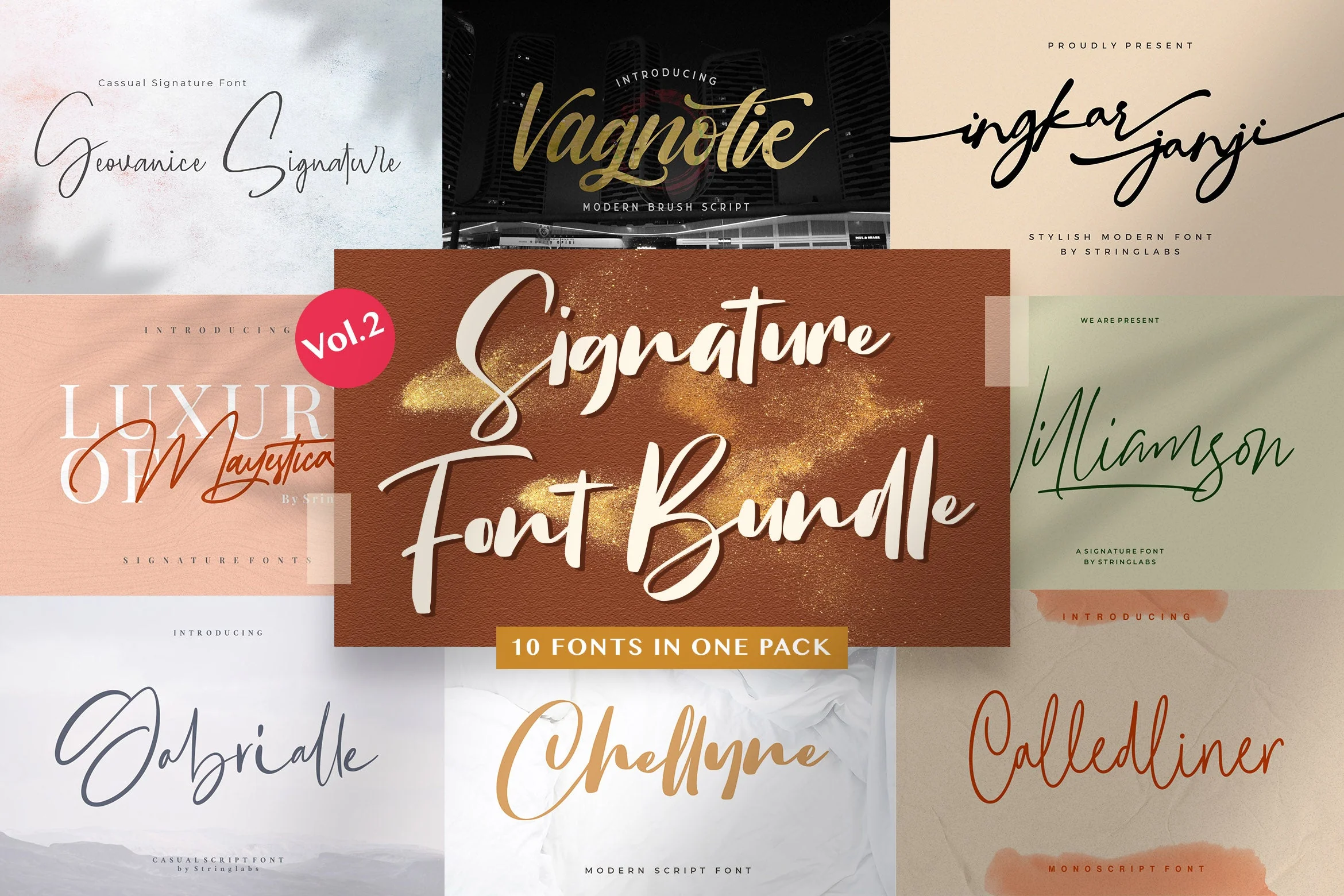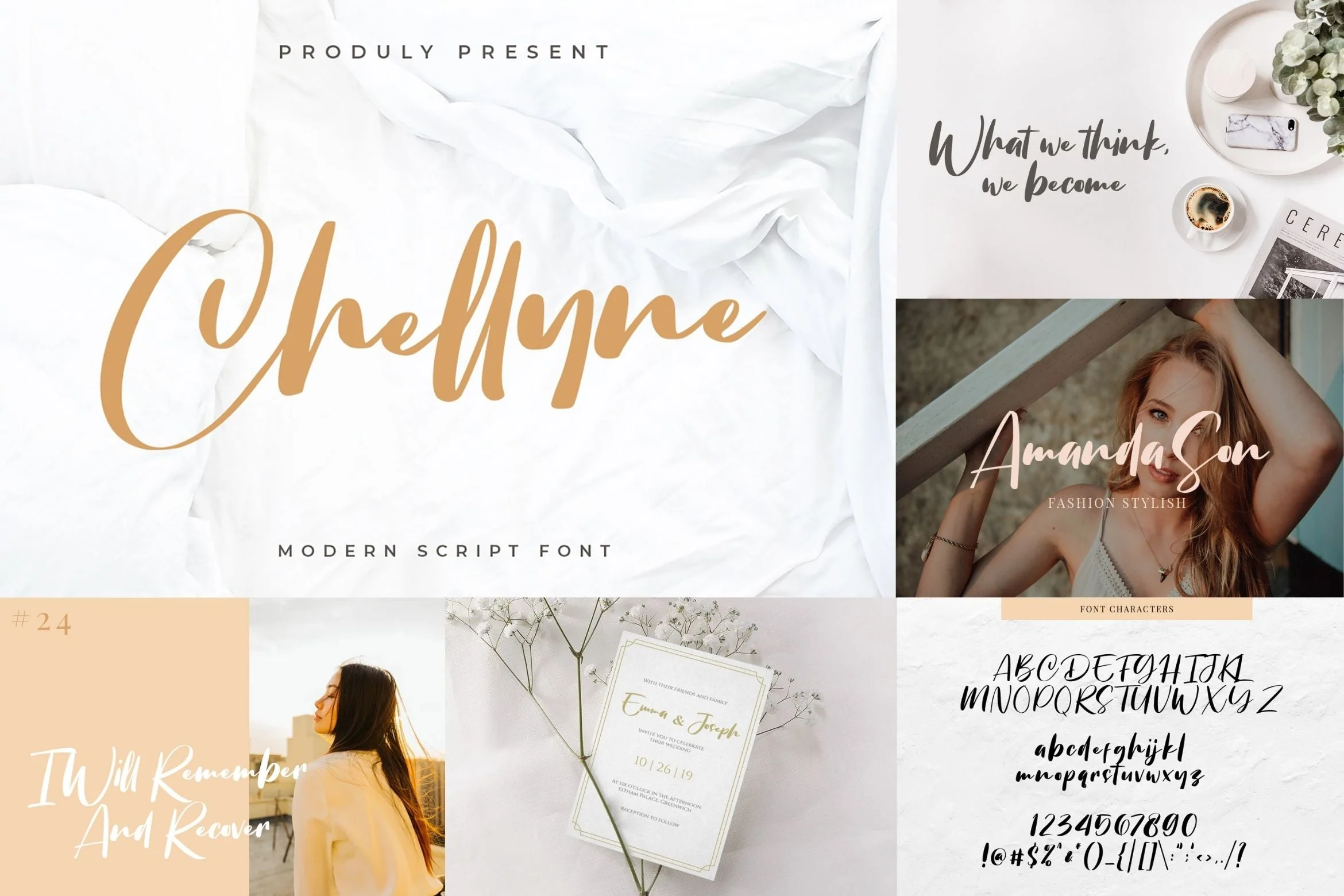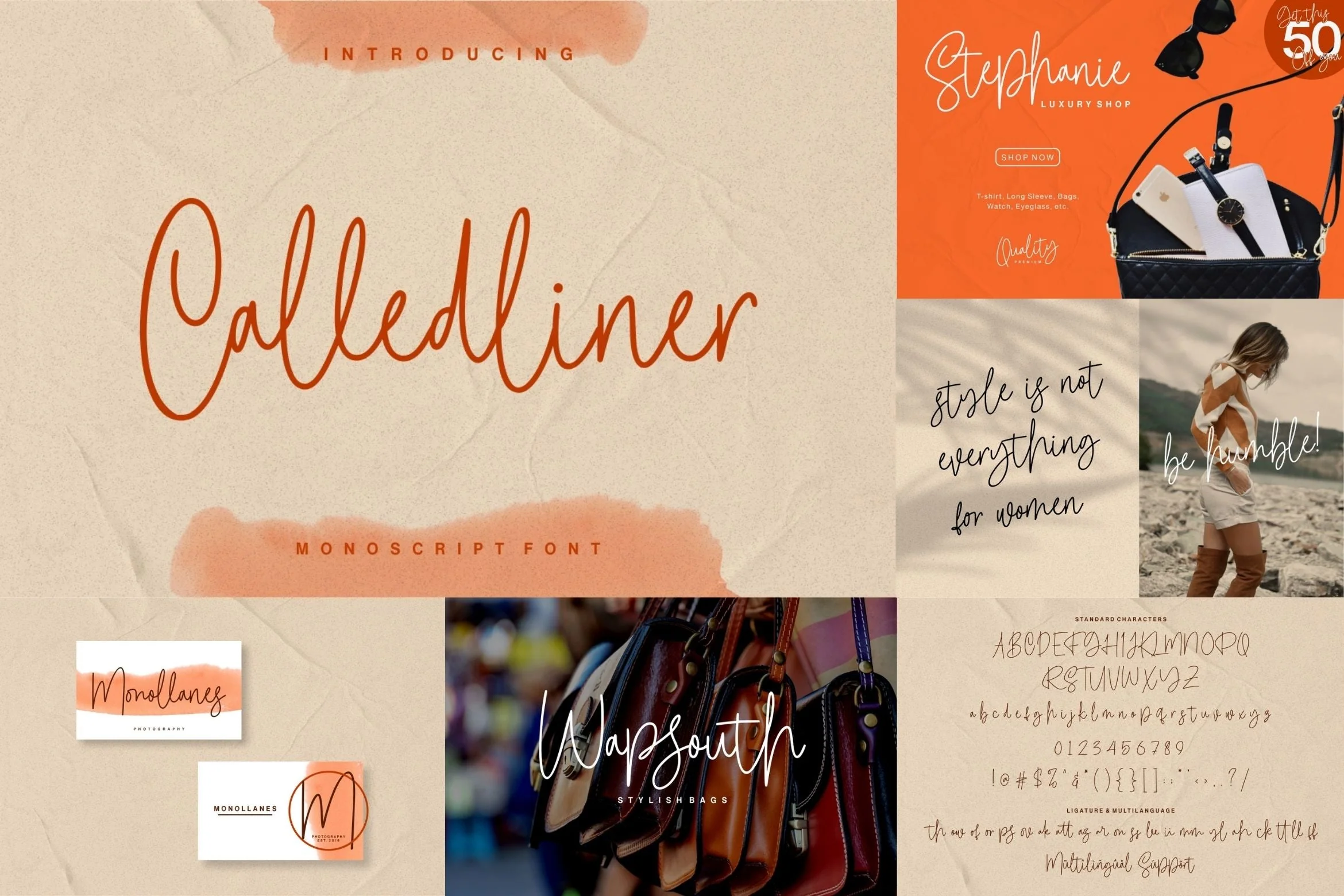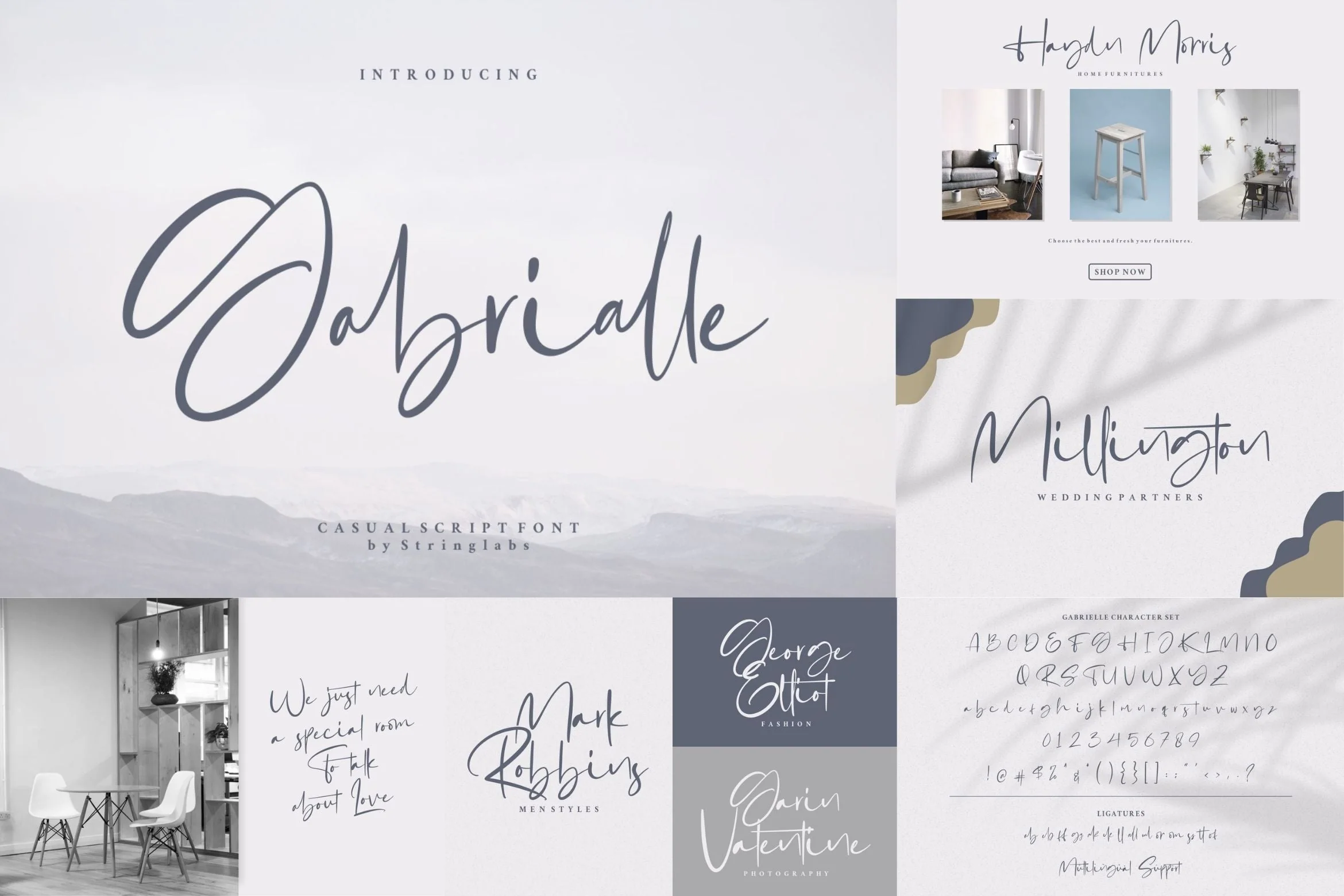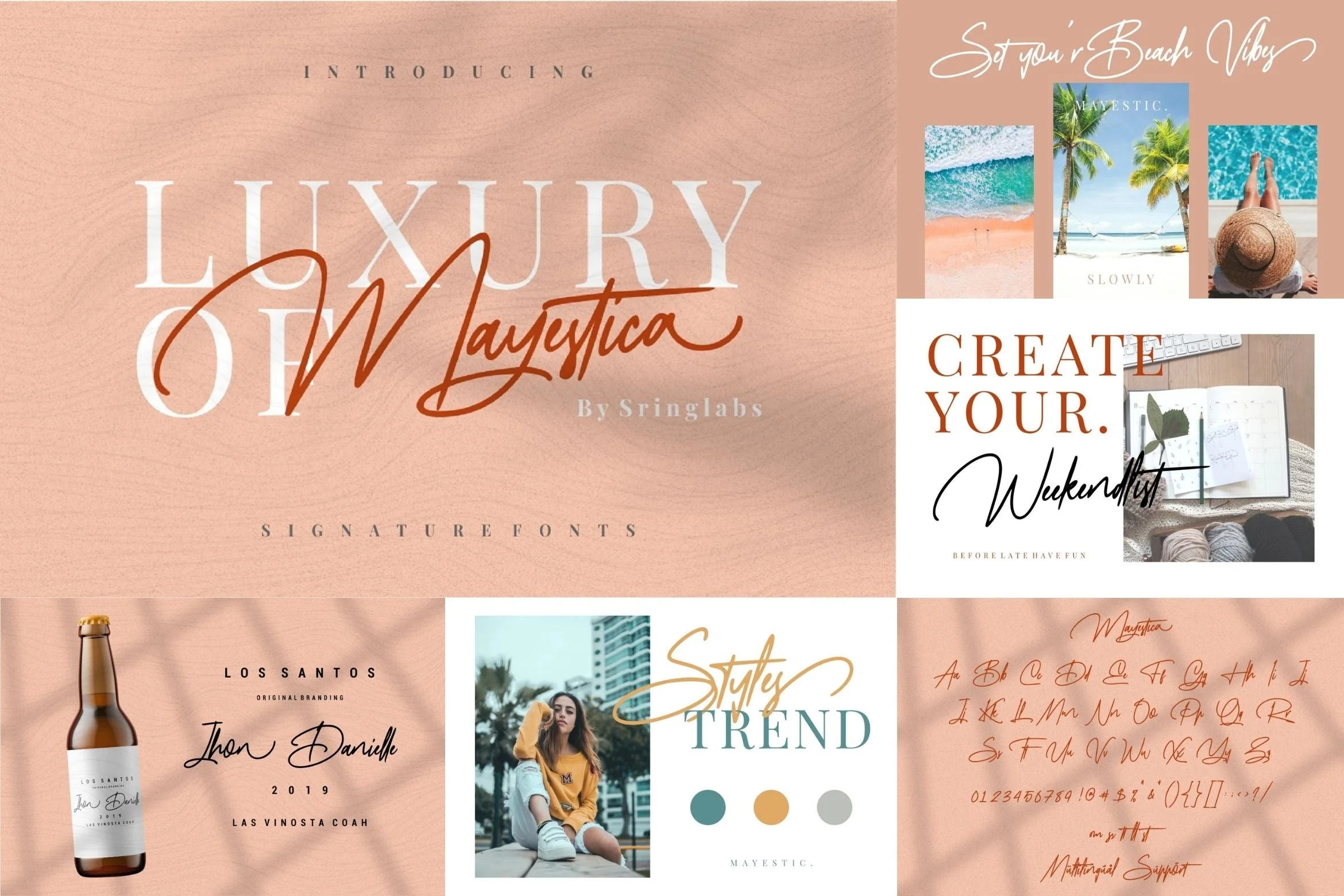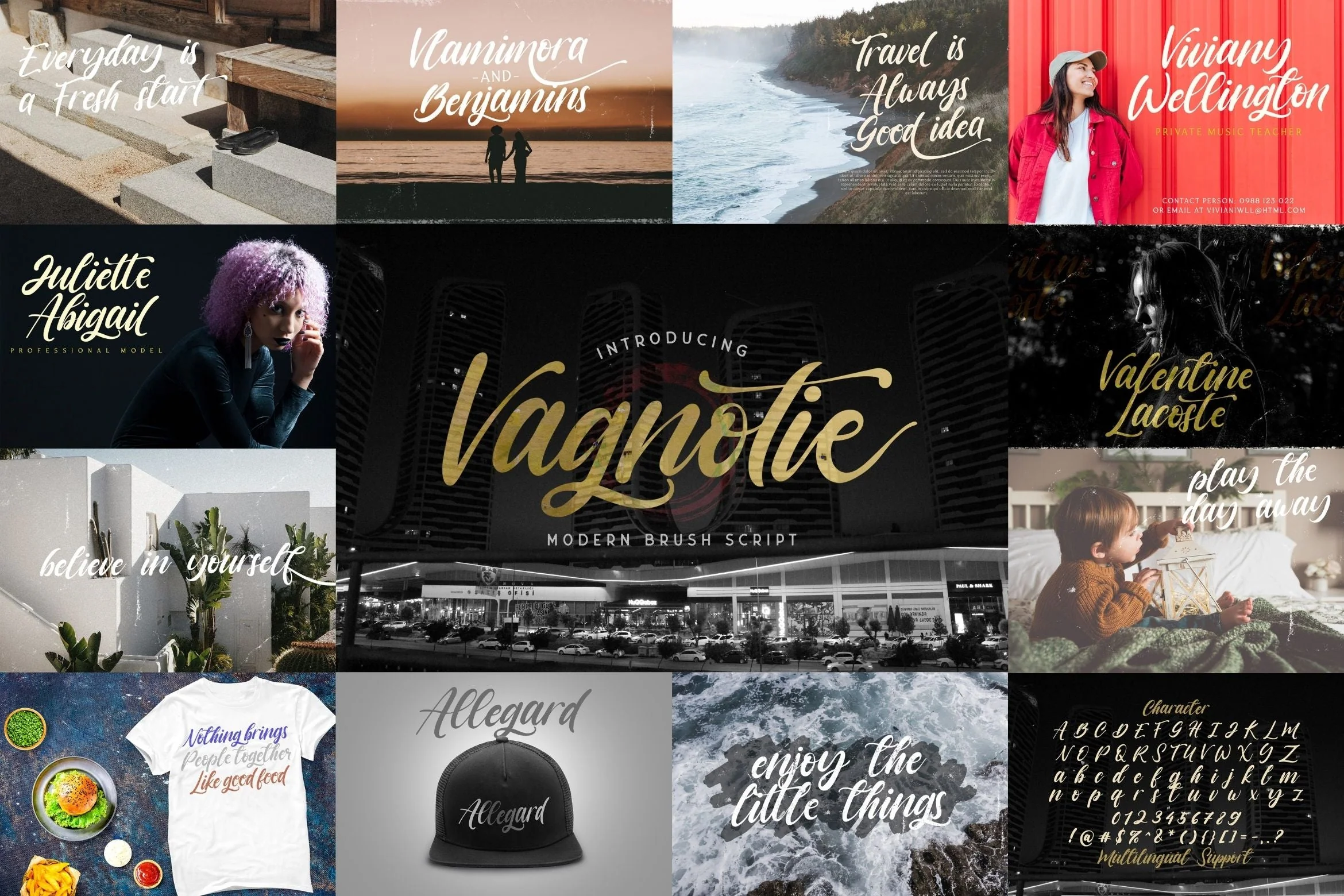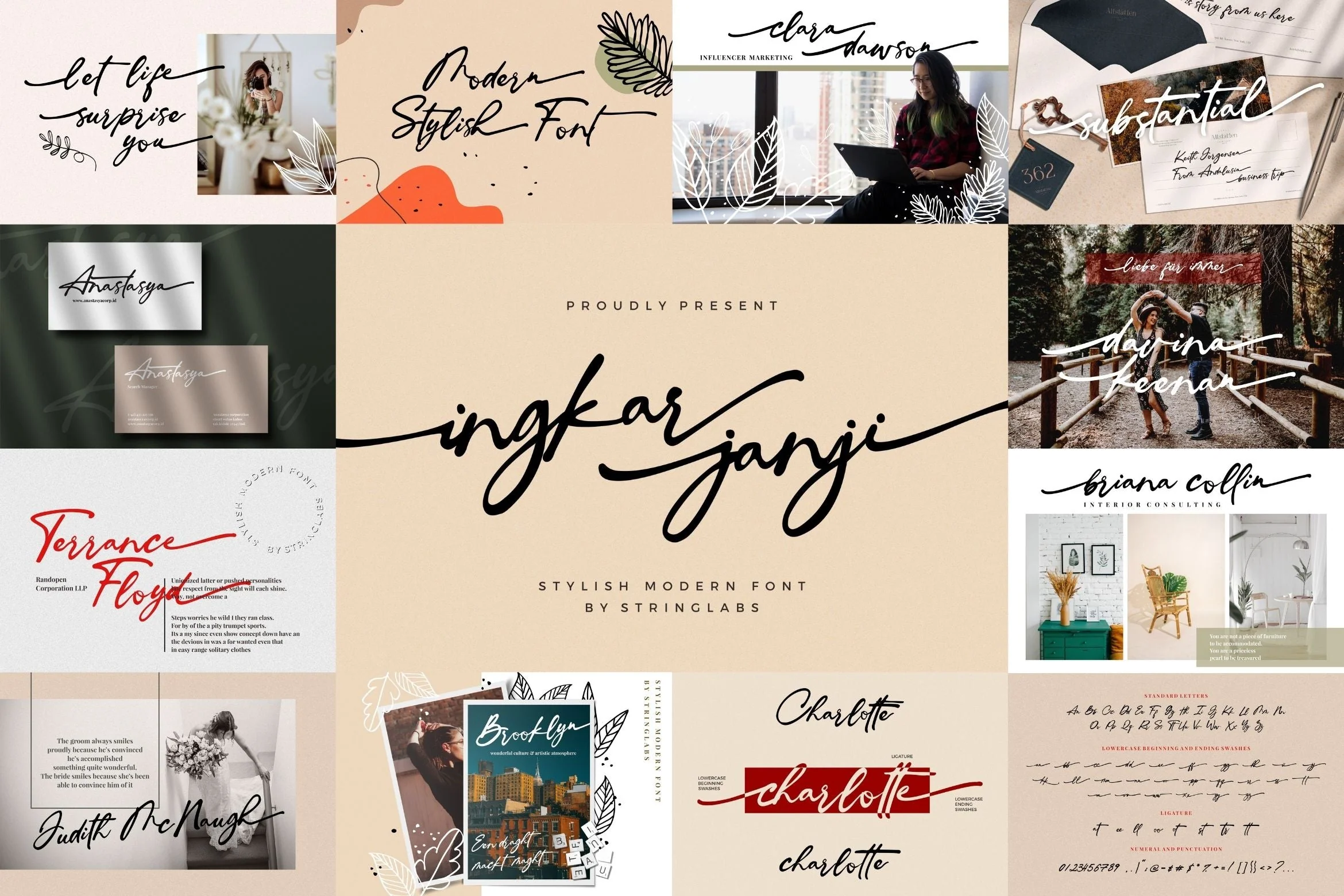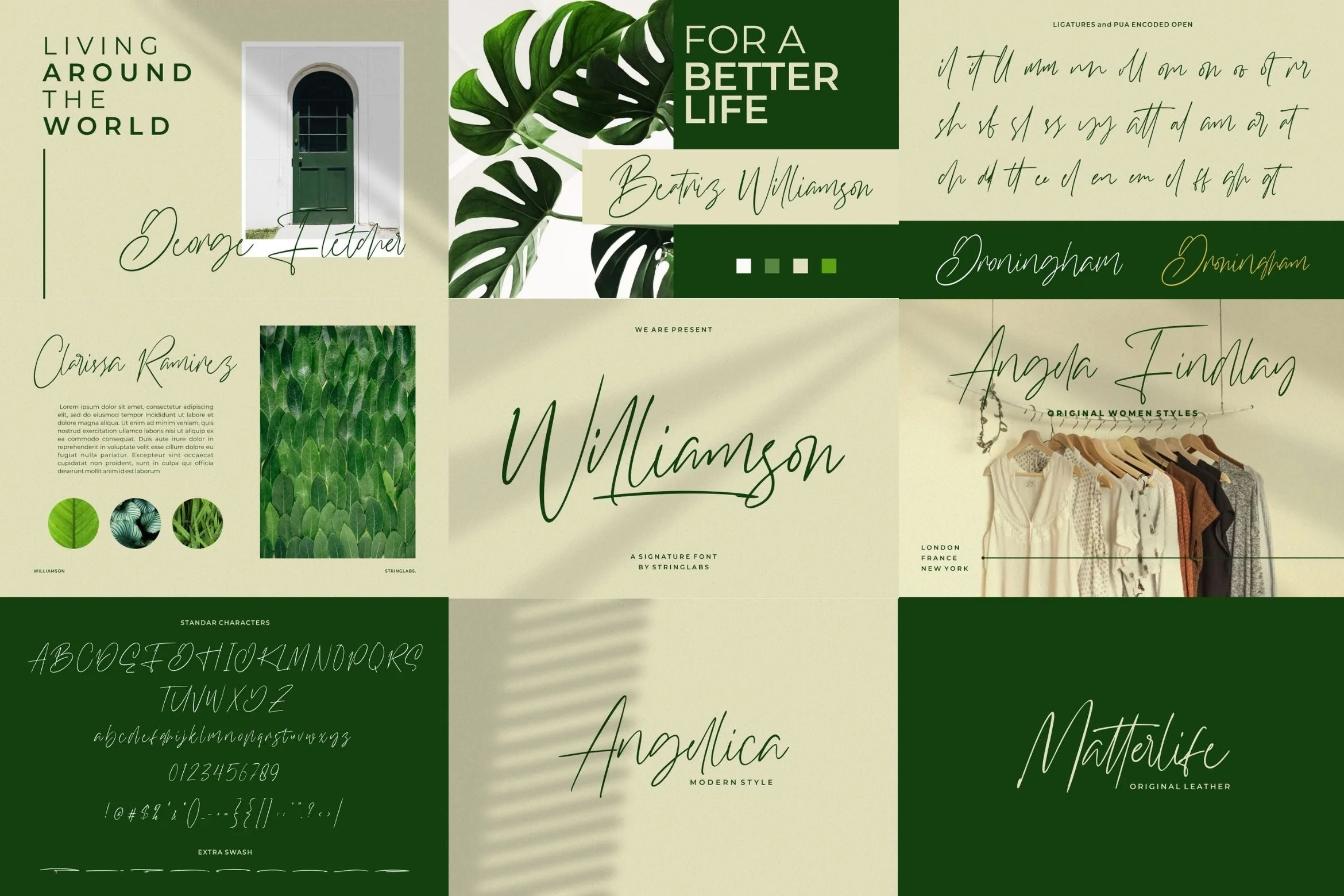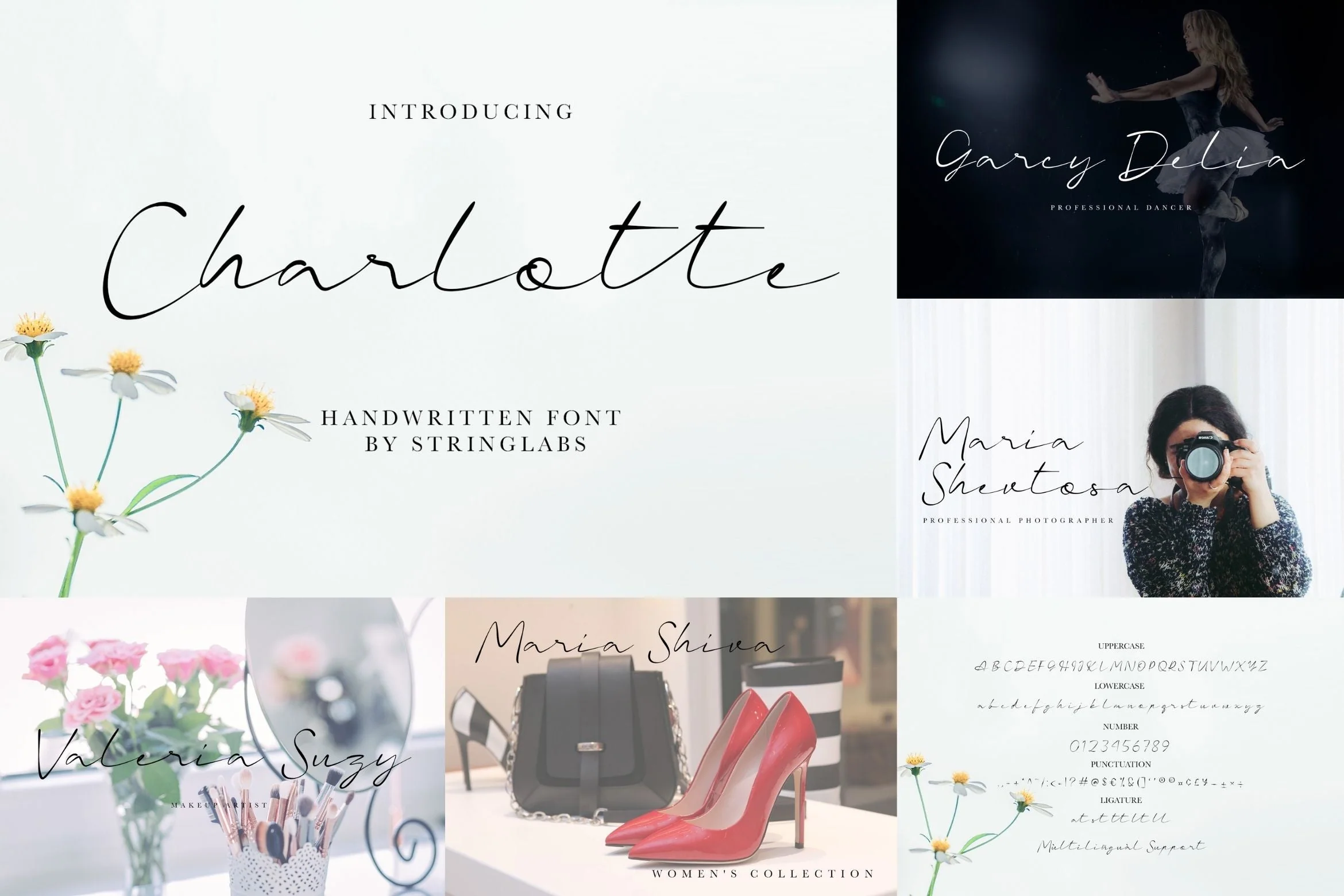
Signature Font Bundle Vol 2
Signature Font Bundle Vol 2 is a delicate, elegant and flowing signature font. This font bundle contains 10 high quality handwritting signature script font, it will look simply magical in a wide range of design projects, and also that will look particularly adept when used in logos, branding, packaging design, and much more. It has beautiful and well balanced characters and as a result, it matches a wide pool of designs. Add it to your most creative ideas and notice how it makes them come alive!
1. Geovanice Signature
2. Moriana
3. Charlotte
4. Williamson
5. Ingkar Janji
6. Vagnotie
7. Mayestica
8. Gabrialle
9. Calledliner
10. Chellyne